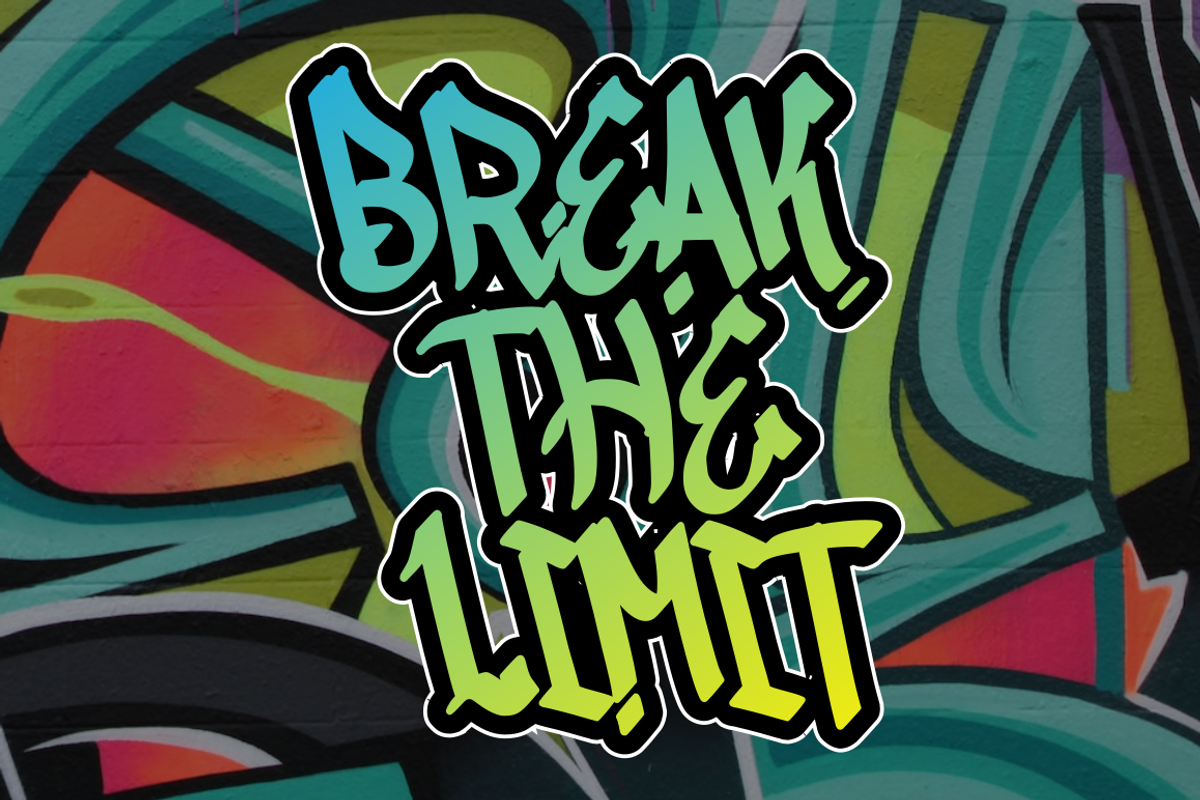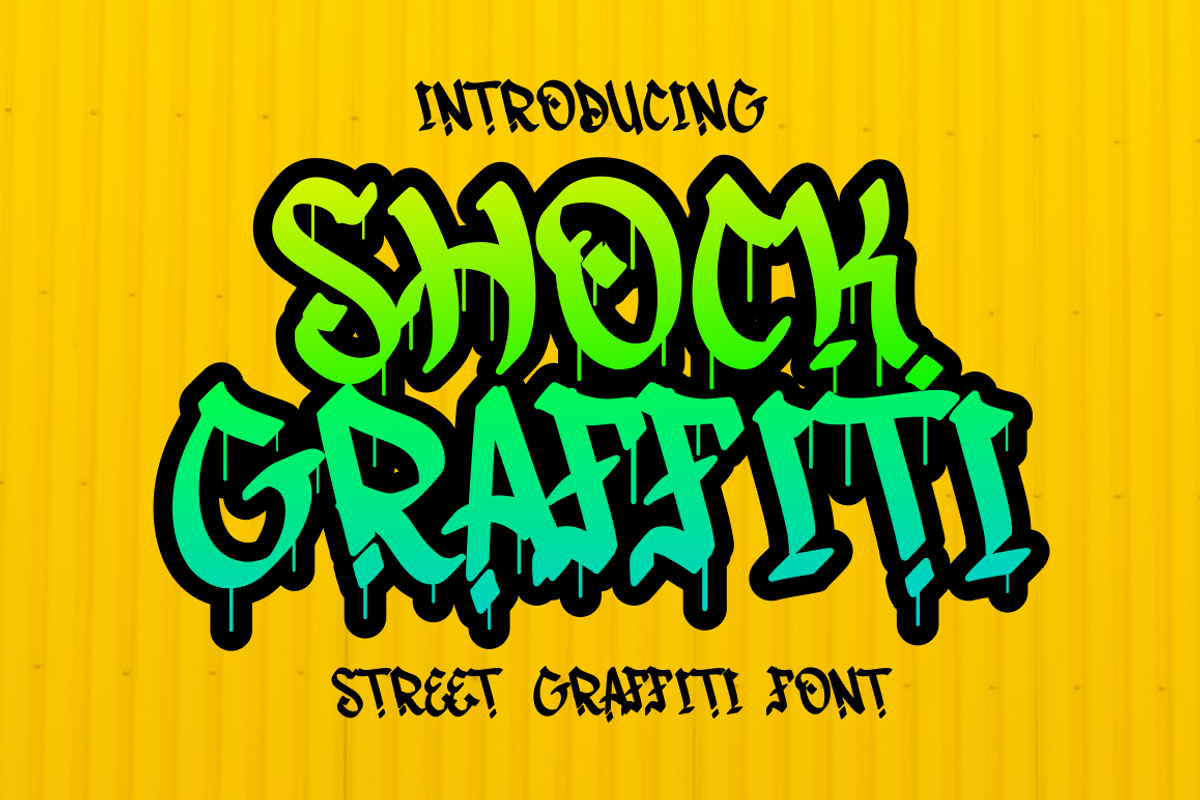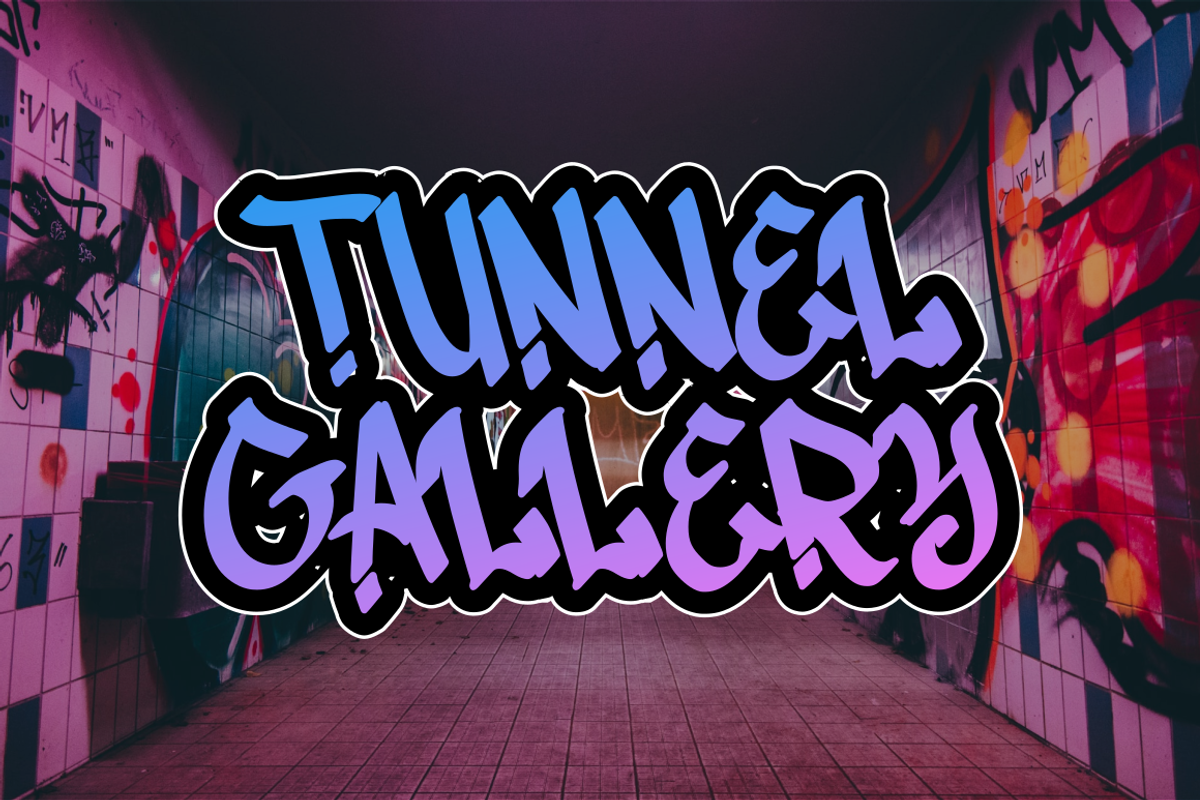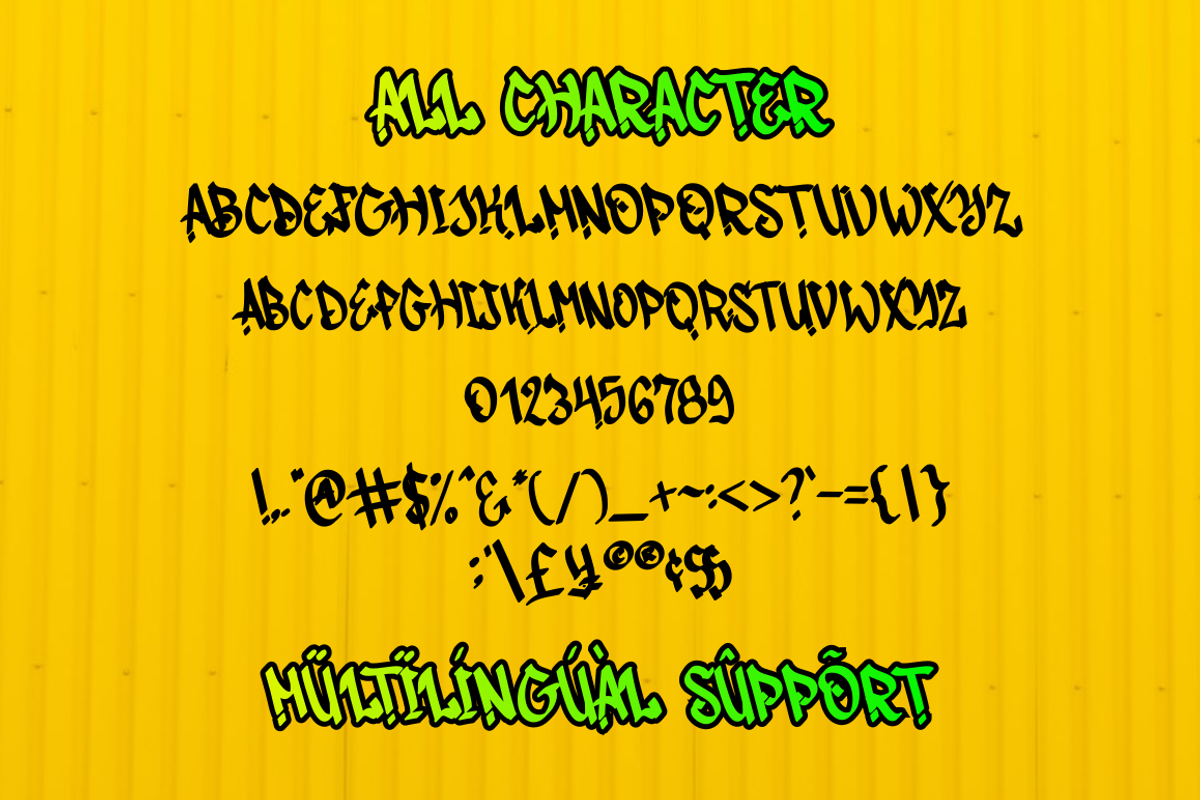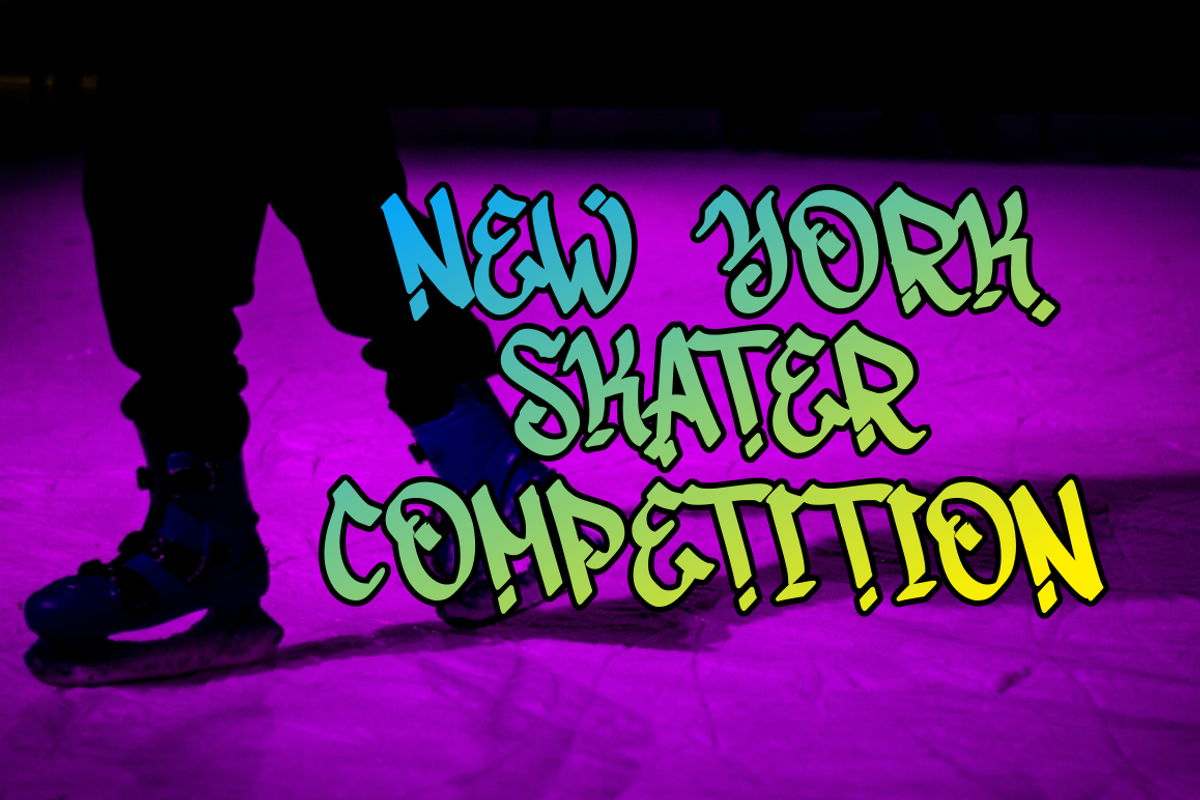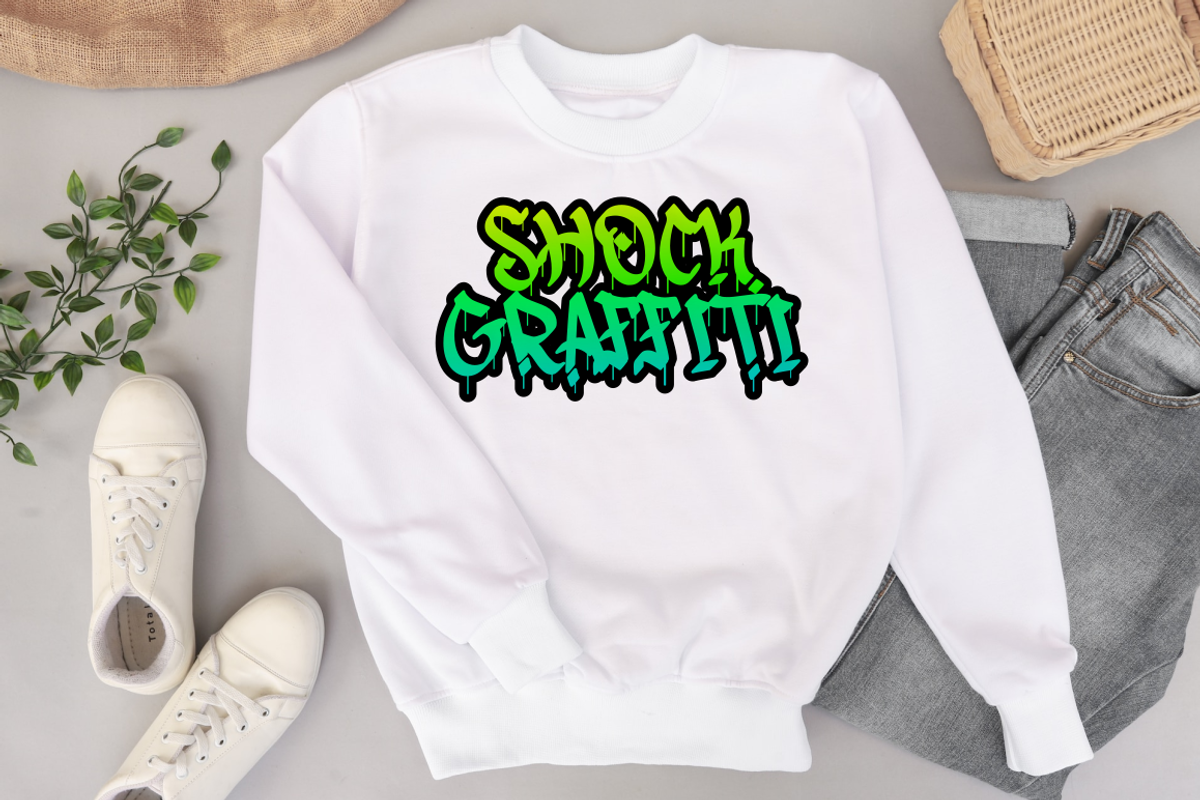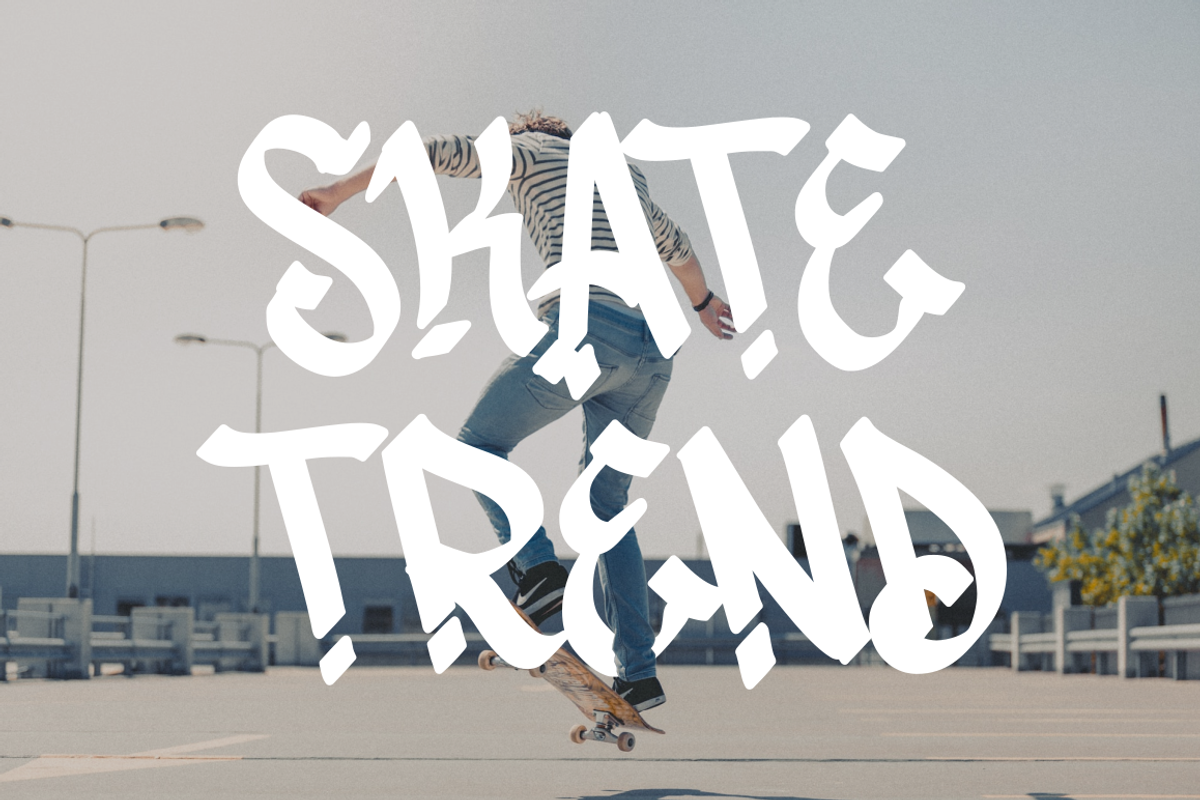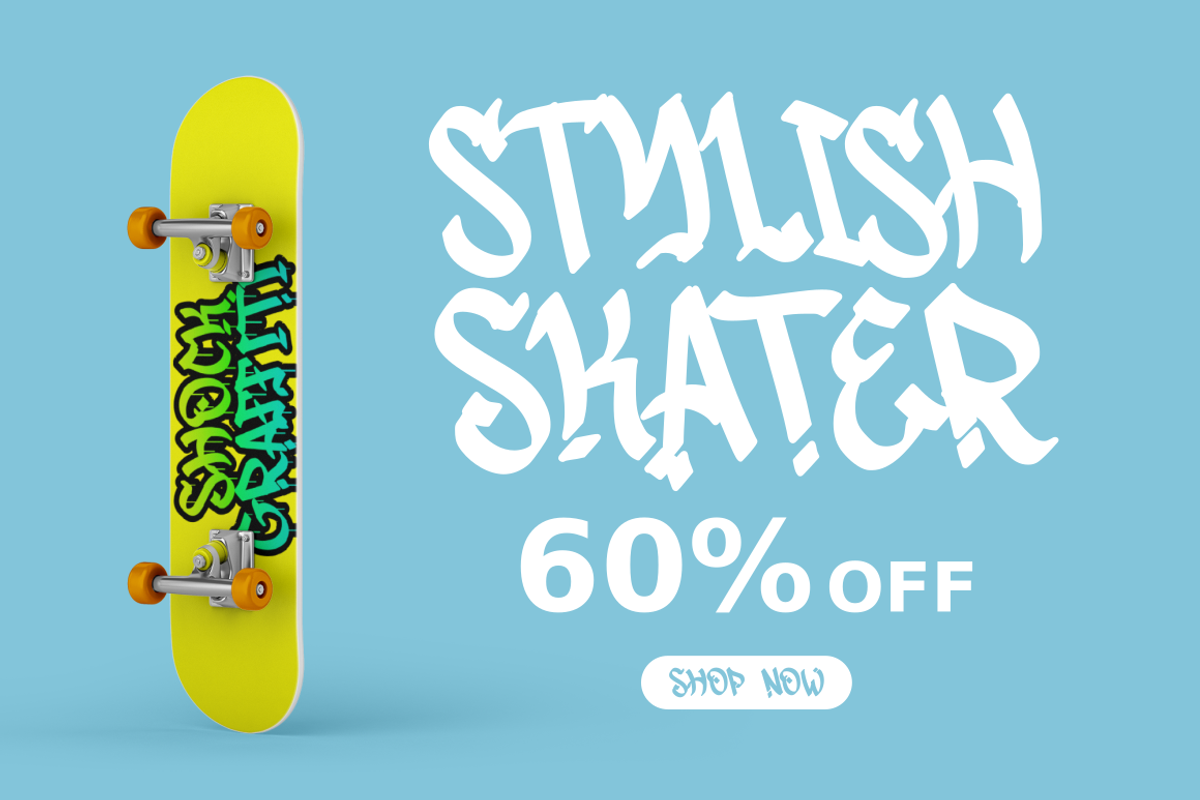
Shock Graffiti
Want to add an urban touch to your designs? Try using the Shock Graffiti font! This font offers a distinctive writing style and is very suitable for urban and street-themed designs. With Shock Graffiti, you can bring a strong and bold impression to every design you create.
Shock Graffiti comes with a complete set of letters and fine details, so you can customize your design better. This font is also very easy to use and compatible with various design applications. Suitable for use in posters, merchandise, or even in t-shirt and hoodie designs.
- More than 200 of glyphs ( include Uppercase, Lowercase, Numerals & Punctuations )